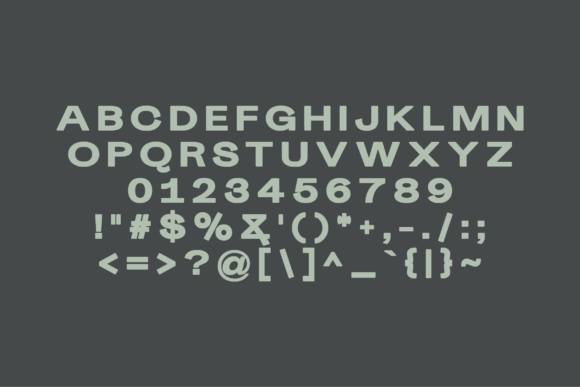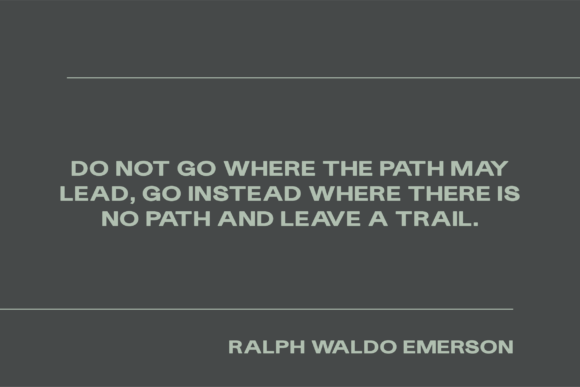
Introduction to Procloudy Font
Have you ever stared at a blank canvas, trying to decide on the perfect font for your creative project? The blank page can be intimidating, but with the right design resource, it can also be a thrilling challenge. That’s where Procloudy Font comes in – a modern, classy sans serif typeface that’s sure to elevate your work to the next level.
Whether you’re designing a logo, creating wedding invitations, or crafting quotes for social media, Procloudy Font is an incredibly versatile option. Its high-quality design makes it perfect for print, magazines, and online advertisements. And the best part? This amazing font is available for a free download, so you can experiment with it on your next creative project without breaking the bank.
- Features a unique, modern design that can add a touch of sophistication to any creative project.
Honest Review: Procloudy Font
I recently stumbled upon the Procloudy Font and I must say, it’s a game-changer for any design project. As a designer, I’m always on the lookout for high-quality fonts that can elevate my creative project to the next level. And, the good news is that Procloudy Font fits the bill perfectly.
Overall, I’m impressed with the quality and versatility of Procloudy Font. It’s a great addition to any designer’s toolkit and I highly recommend it for any creative project ✨.
Tips for Getting the Most Out of Procloudy Font
Experiment with different font sizes, colors, and combinations to find the perfect look for your creative project. Use the transparent background to create unique and eye-catching designs.
Common Use Cases for Procloudy Font
The Procloudy Font is suitable for a wide range of creative projects, including social media graphics, presentations, logos, and more. Its high quality and versatility make it a popular choice among designers and creatives.